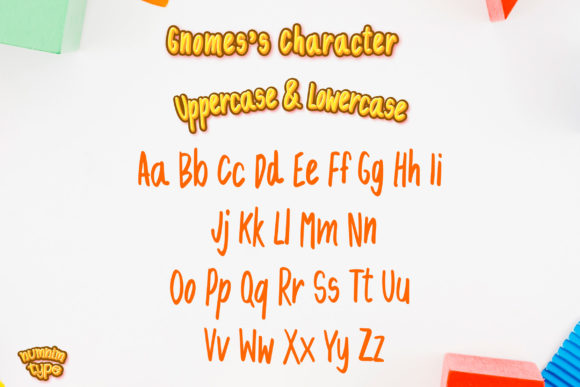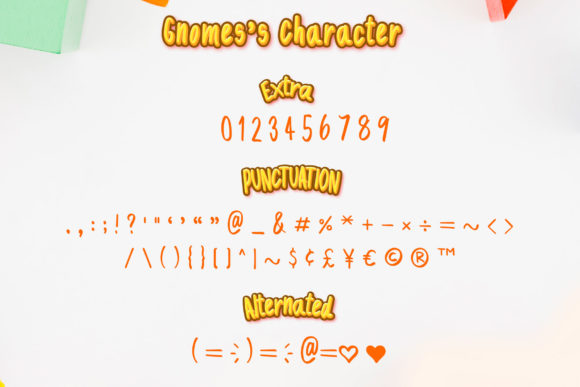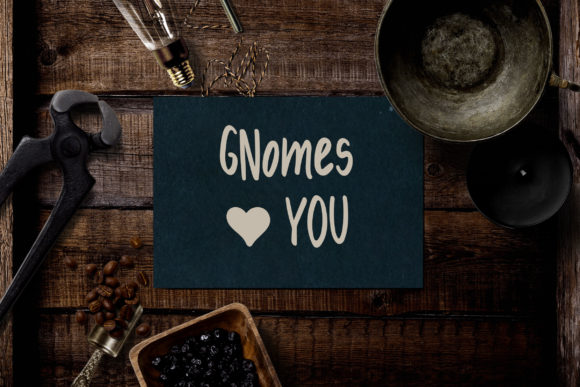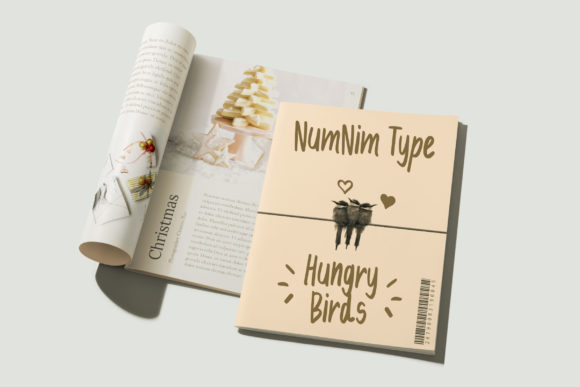
Introducing “Gnomes,” a bold and joyful handwritten font that will add a whimsical and playful touch to your designs. With its cute doodle elements and vibrant style, Gnomes is the perfect font for holiday letters, children-themed designs, and any project that calls for a fun and energetic vibe.
The doodle elements in Gnomes add a delightful charm to the font, making it perfect for capturing the attention and imagination of children and adults alike. The bold strokes and playful shapes give your designs a lively and cheerful character, making them visually appealing and engaging.
When paired with bright colors, Gnomes truly comes to life, creating a vibrant and eye-catching design. Whether you’re designing holiday greeting cards, party invitations, or playful posters, Gnomes will bring a sense of joy and excitement to your projects.
Gnomes is also a great choice for children’s books, nursery decor, and educational materials. Its bold and legible style ensures that young readers can easily follow along, while the cute doodle elements add an extra layer of fun and whimsy.
One of the great advantages of Gnomes is its versatility. While it is particularly well-suited for holiday and children-themed designs, it can also be used in various other contexts. Its boldness and playful nature make it a great choice for branding, packaging, social media graphics, and more.
With Gnomes, you can let your creativity run wild. Experiment with different layouts, sizes, and color combinations to create unique and captivating designs. The combination of bold typography and cute doodle elements offers endless possibilities for creating visually appealing and memorable compositions.
In conclusion, Gnomes is a bold and joyful handwritten font that is perfect for holiday letters, children-themed designs, and projects that require a fun and energetic vibe. Its cute doodle elements and vibrant style will bring a sense of joy and playfulness to your designs. Whether you’re creating holiday cards, children’s books, or any other project, Gnomes will add a delightful touch that is sure to capture the hearts of your audience.